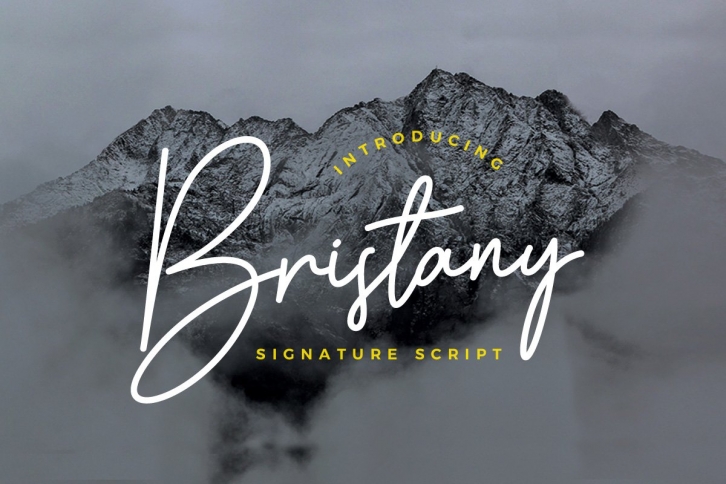
Bristany Signature is a great font that was designed by Multype Studio. Imagine the amount of combinations you can create using this font! The archive is 18.92 MB and it was released on April 26, 2022. Bristany Signature looks beautiful on wedding invitations, greeting cards, logos, posters, labels, t-shirt designs, logos, business cards and is perfect for use in ink or watercolor works, fashion, magazines, packaging and food menus, children's books and more!